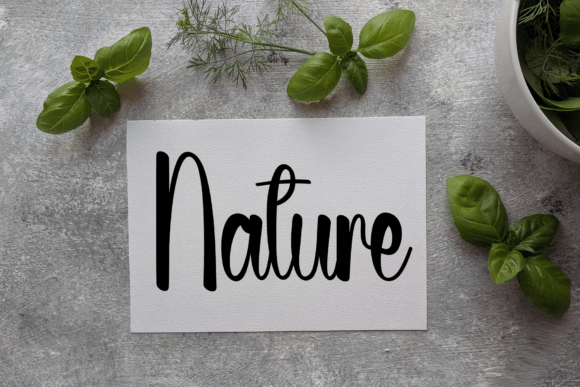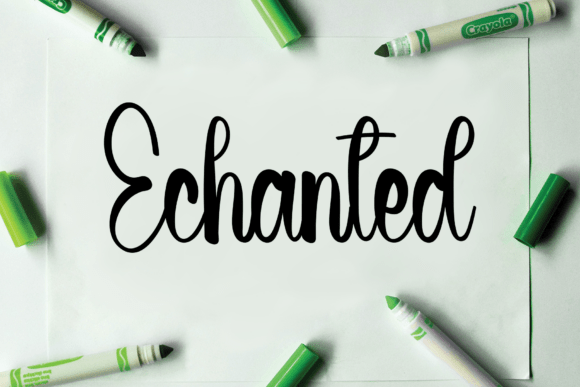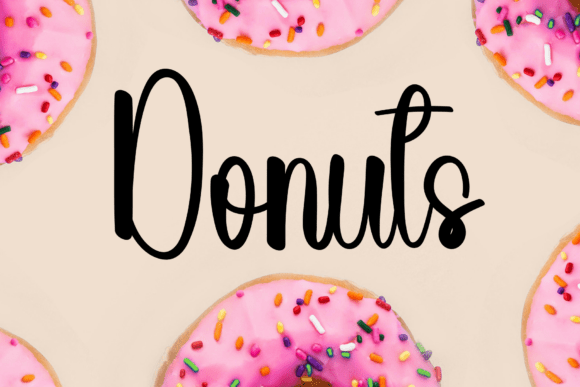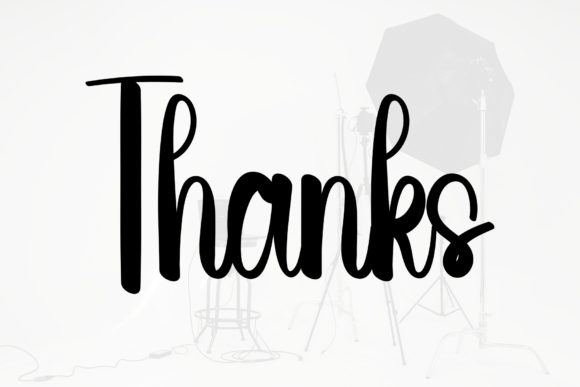
Introduction to Friday Authentic Font
Friday Authentic is a charming handwritten font filled with a sense of heartfelt perfection.
Its smooth strokes and organic lines evoke a relaxed atmosphere, making it perfect for a variety of design projects Whether used for branding, invitations or social media graphics.
Key Features of Friday Authentic Font
Why Choose Friday Authentic Font?